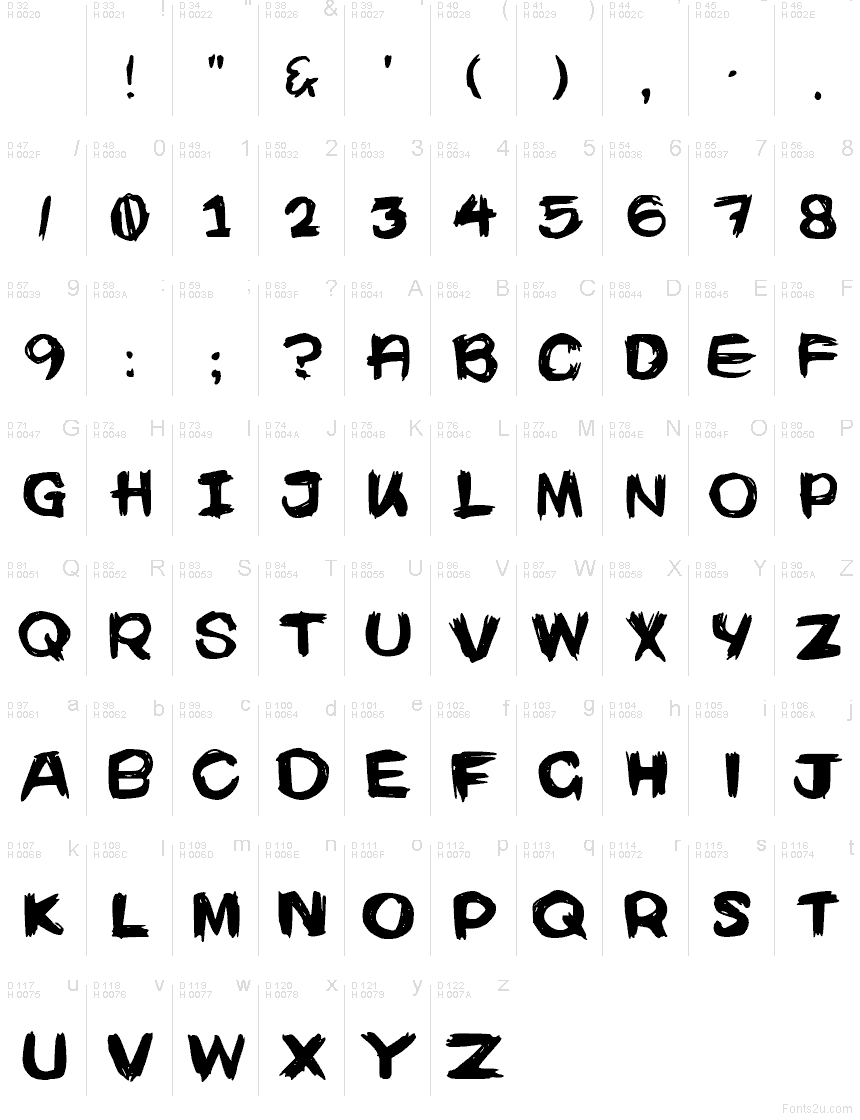
Moshin is a free brush display font with broad, uneven strokes and a forceful hand-painted silhouette. The letters lean into blunt corners, swollen curves, and ragged edges rather than a smooth signwriter's finish. Small gaps and flecks break up the ink.
A poster is its clearest setting, especially for underground music, streetwear merchandise, and action-oriented event graphics that benefit from rough lettering. Its solid shapes can also become part of an illustrated splash, stamped mark, or paint-smeared graphic rather than serving as neutral type.
Moshin